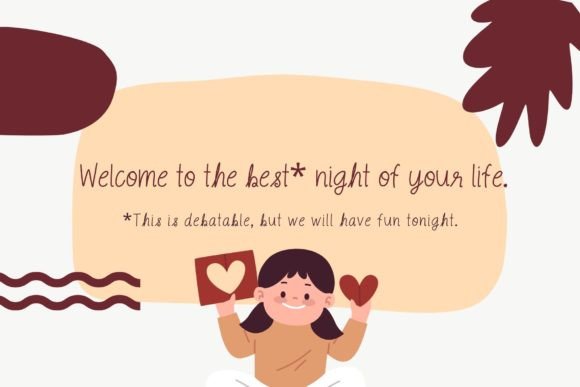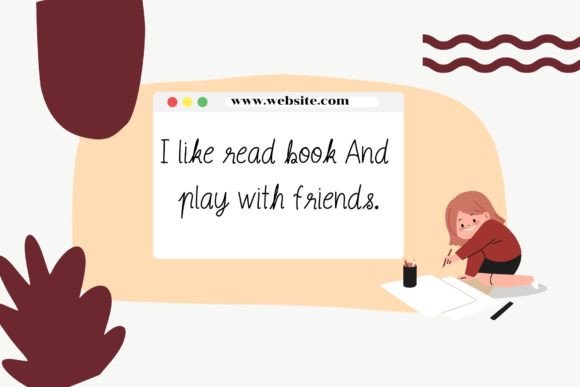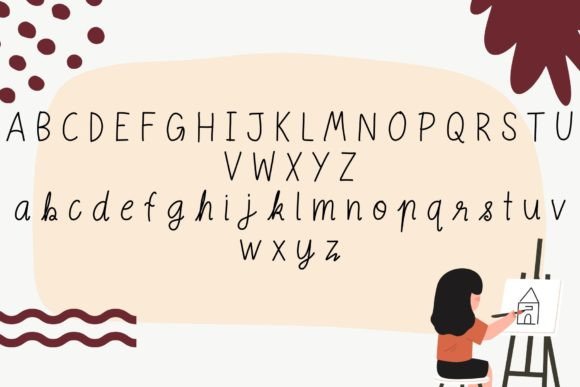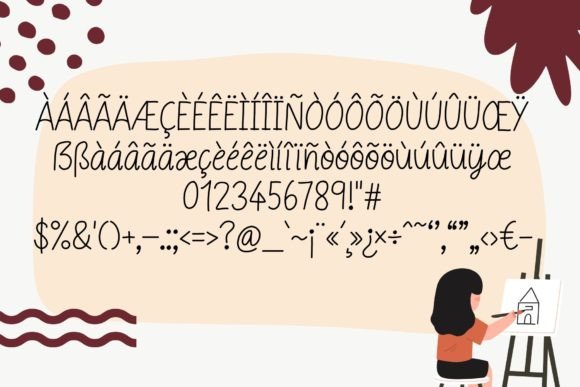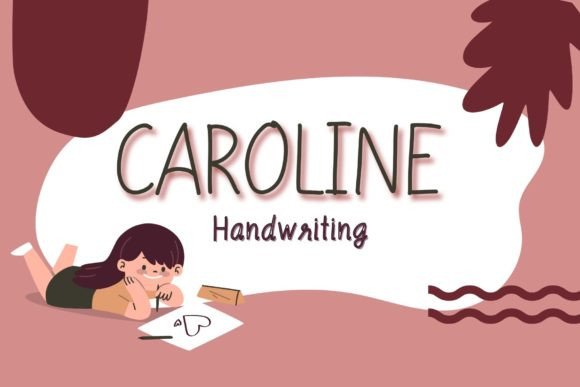
Discover the Charm of Caroline Font: A Cute Handwritten Delight
Are you on the hunt for a font that adds a touch of playfulness and whimsy to your designs? Look no further than Caroline Font, a delightful handwritten font that’s perfect for a variety of creative projects. In this article, we’ll dive into the world of Caroline Font, exploring its features, uses, and benefits for designers and crafters alike.
What is Caroline Font?
Caroline Font is a beautiful, handwritten sans-serif font that’s sure to capture your heart. Its cute and playful design makes it an excellent choice for a wide range of applications, from invitations and greeting cards to logos, branding materials, and more. With its unique character and charming personality, Caroline Font is the perfect addition to any design project that needs a dash of fun and personality.
Key Features of Caroline Font
So, what makes Caroline Font so special? Here are just a few of its key features:
- Handwritten design: Caroline Font boasts a beautiful, handwritten design that’s full of character and personality.
- Playful sans-serif: This font features a playful sans-serif design that’s perfect for adding a touch of whimsy to your designs.
- Easy to read: Despite its playful design, Caroline Font is easy to read, making it perfect for use in a variety of applications.
- Versatile: Whether you’re designing an invitation, a logo, or a social media graphic, Caroline Font is a versatile choice that will get the job done.
Uses for Caroline Font
So, what can you use Caroline Font for? The possibilities are endless! Here are just a few ideas to get you started:
- Invitations: Add a touch of whimsy to your wedding invitations, birthday party invites, or baby shower announcements with Caroline Font.
- Greeting cards: Create beautiful, one-of-a-kind greeting cards for any occasion with Caroline Font.
- Logos and branding: Use Caroline Font to create a unique and memorable logo or branding identity for your business or organization.
- Social media graphics: Add a dash of personality to your social media graphics, such as Facebook posts, Instagram stories, and Twitter headers, with Caroline Font.
- Crafting projects: If you’re a crafter, Caroline Font is a great choice for a variety of projects, such as scrapbooking, journaling, and card making.
Benefits of Using Caroline Font
So, why should you choose Caroline Font for your next design project? Here are just a few benefits of using this delightful font:
- Adds personality: Caroline Font adds a touch of personality and whimsy to your designs, making them stand out from the crowd.
- Easy to use: This font is easy to use and pairs well with a variety of other fonts, making it a great choice for designers of all skill levels.
- Versatile: Caroline Font is a versatile choice that can be used in a wide range of applications, from invitations to logos and more.
- Unique: With its unique character and design, Caroline Font is a great choice for designers who want to create something truly one-of-a-kind.
Tips for Using Caroline Font
Here are a few tips for using Caroline Font in your designs:
- Pair with other fonts: Caroline Font pairs well with a variety of other fonts, so don’t be afraid to experiment and find the perfect combination for your design.
- Use it sparingly: While Caroline Font is a beautiful font, it can be overwhelming if used too much. Use it sparingly to add a touch of personality to your design.
- Experiment with colors: Caroline Font looks great in a variety of colors, so don’t be afraid to experiment and find the perfect hue for your design.
| Font Name | Caroline Font |
In conclusion, Caroline Font is a delightful handwritten font that’s perfect for designers and crafters who want to add a touch of personality and whimsy to their designs. With its playful sans-serif design, easy readability, and versatility, Caroline Font is a great choice for a wide range of applications. Whether you’re designing an invitation, a logo, or a social media graphic, Caroline Font is sure to make your design stand out from the crowd.